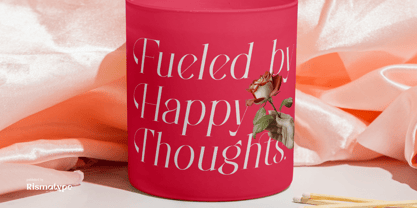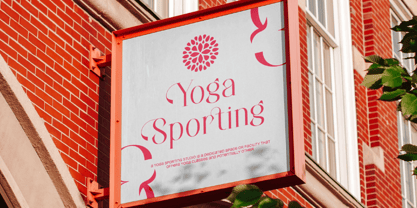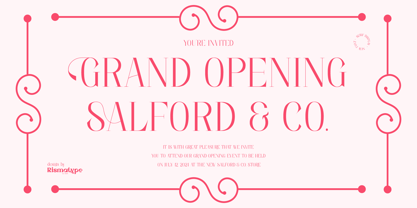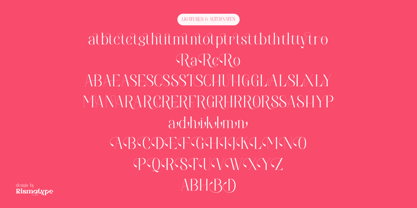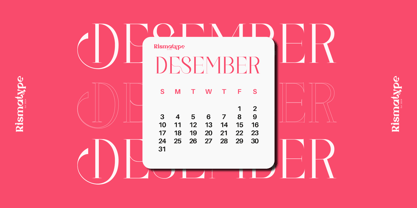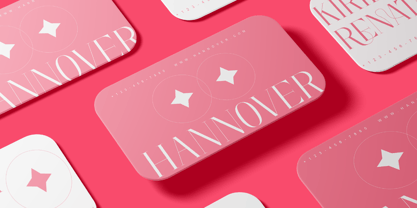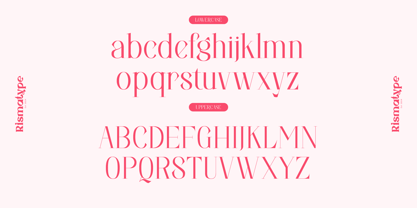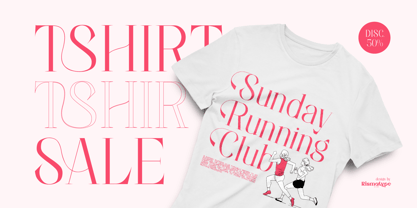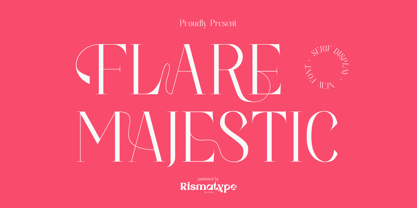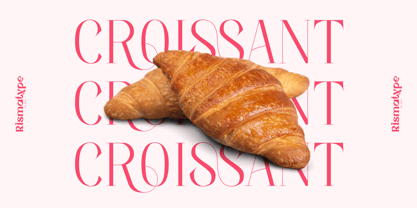
Flare Majestic
by Risma Type
The Flare Majestic Font Family was designed by Risma Mulyasari and published by Risma Type. Flare Majestic contains 2 styles and family package options.
✨ Flare Majestic ✨
Elegant and Serif Display Font
Flare Majestic is a serif display font crafted to exude luxury and captivating visual appeal. With refined, slender lines and unique curves, this font is perfect for elevating design projects that demand style, such as:
Branding & Logos: Make a memorable statement.
Editorial & Magazines: Add elegance and professionalism.
Invitations & Cards: Bring a touch of luxury to special moments.
💎 Create a lasting impression with every character of Flare Majestic.
Infuse your designs with elegance and modernity that stands out!